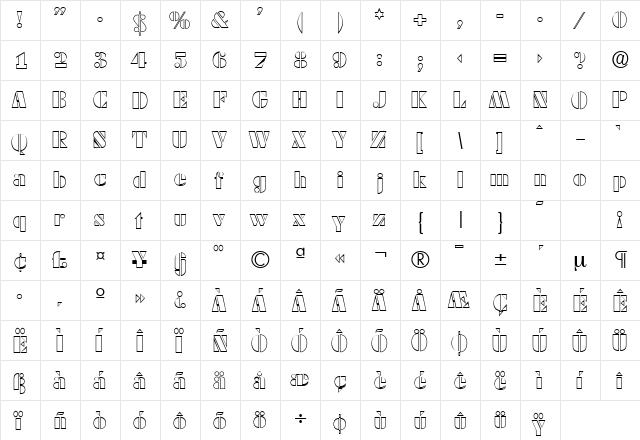
DekoBlackOpen-Serial Regular
Design Context for DekoBlackOpen-Serial Typeface
DekoBlackOpen-Serial is a composed and adaptable typeface that performs quietly and consistently across a wide range of design contexts.